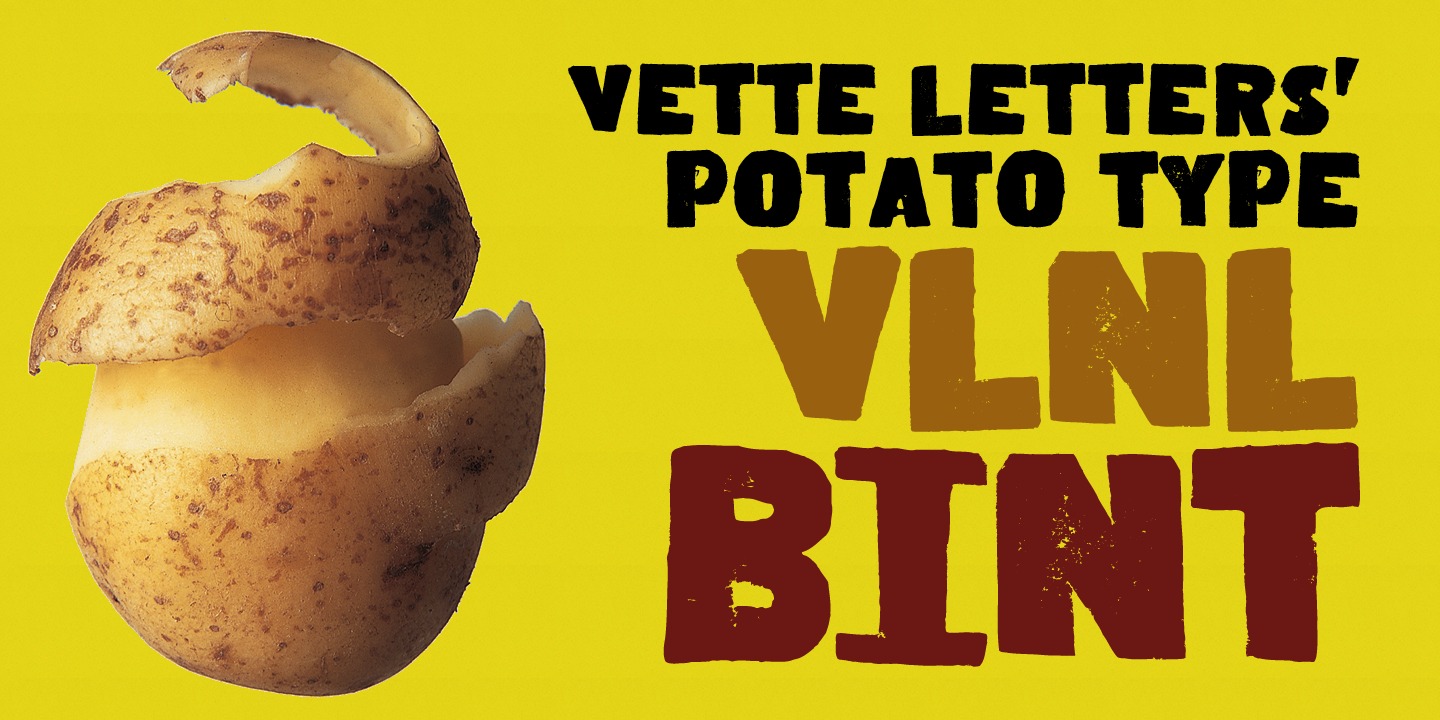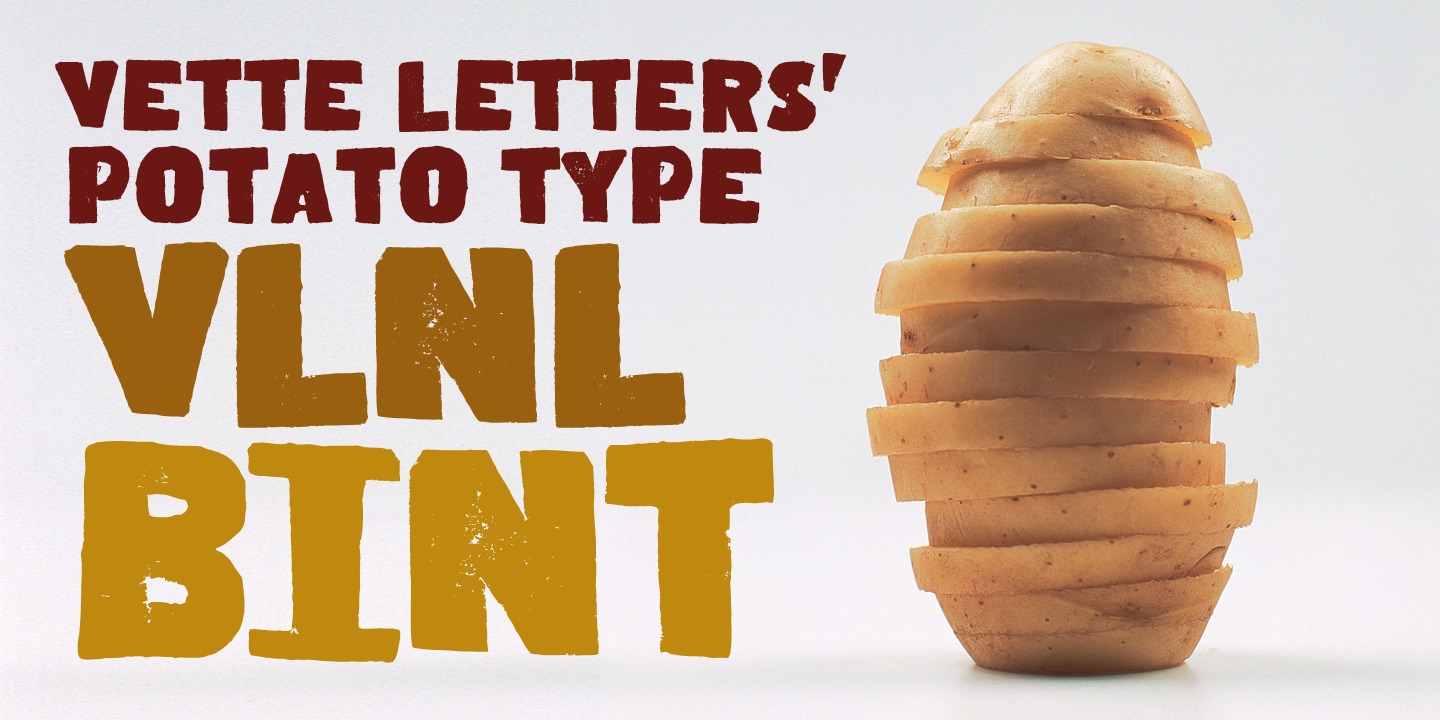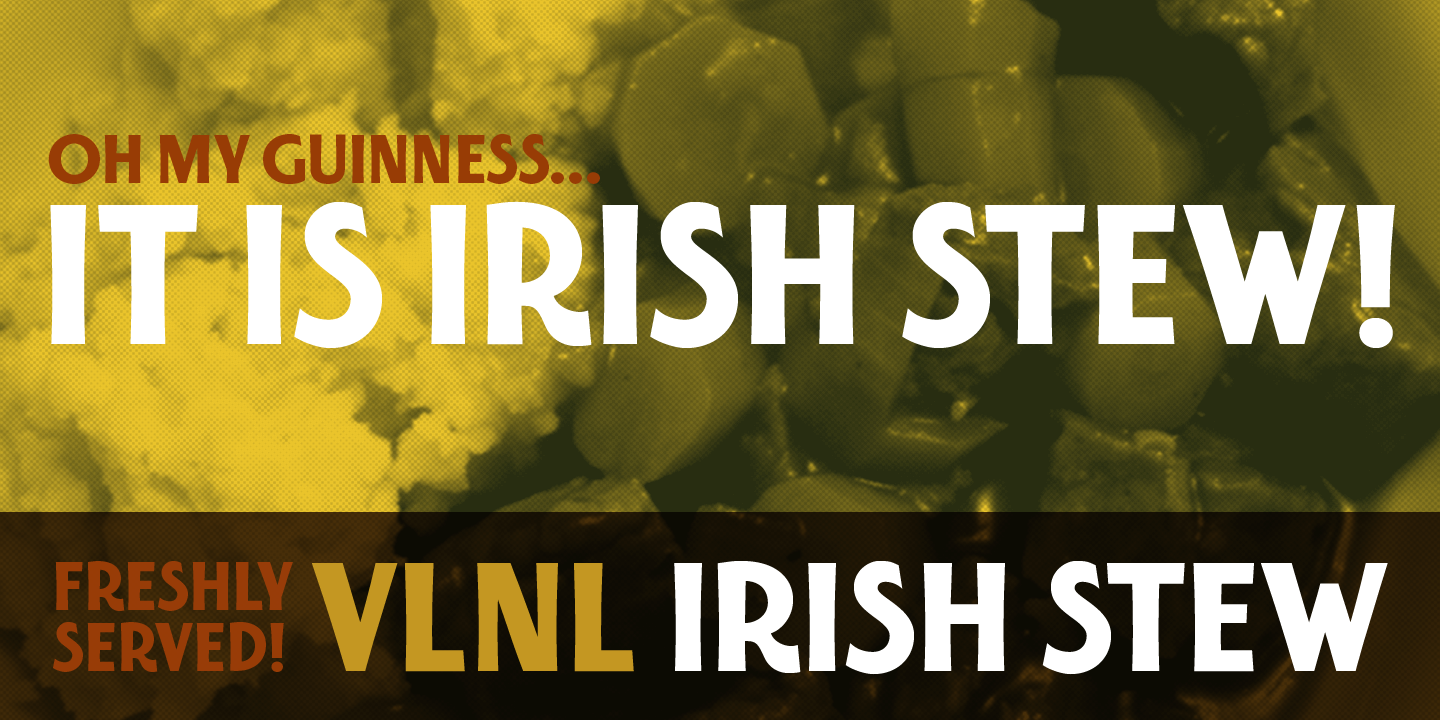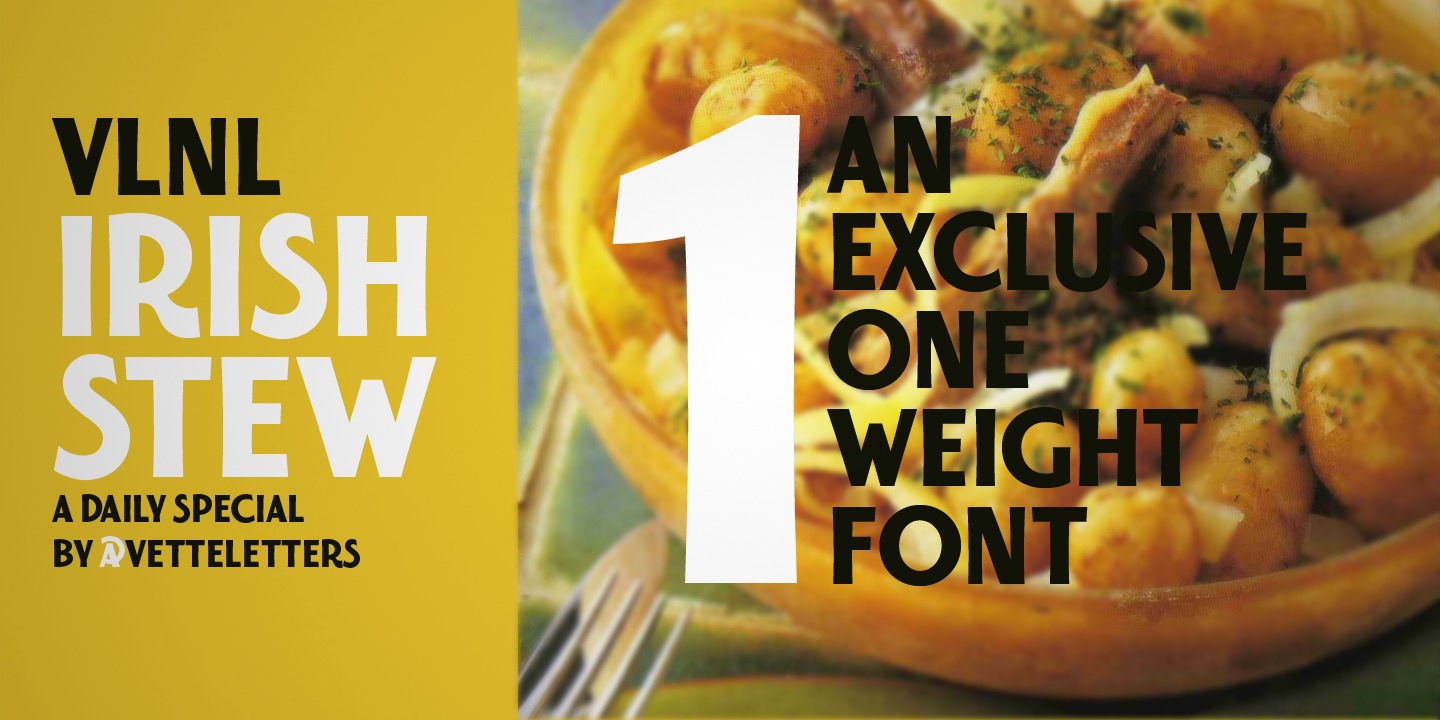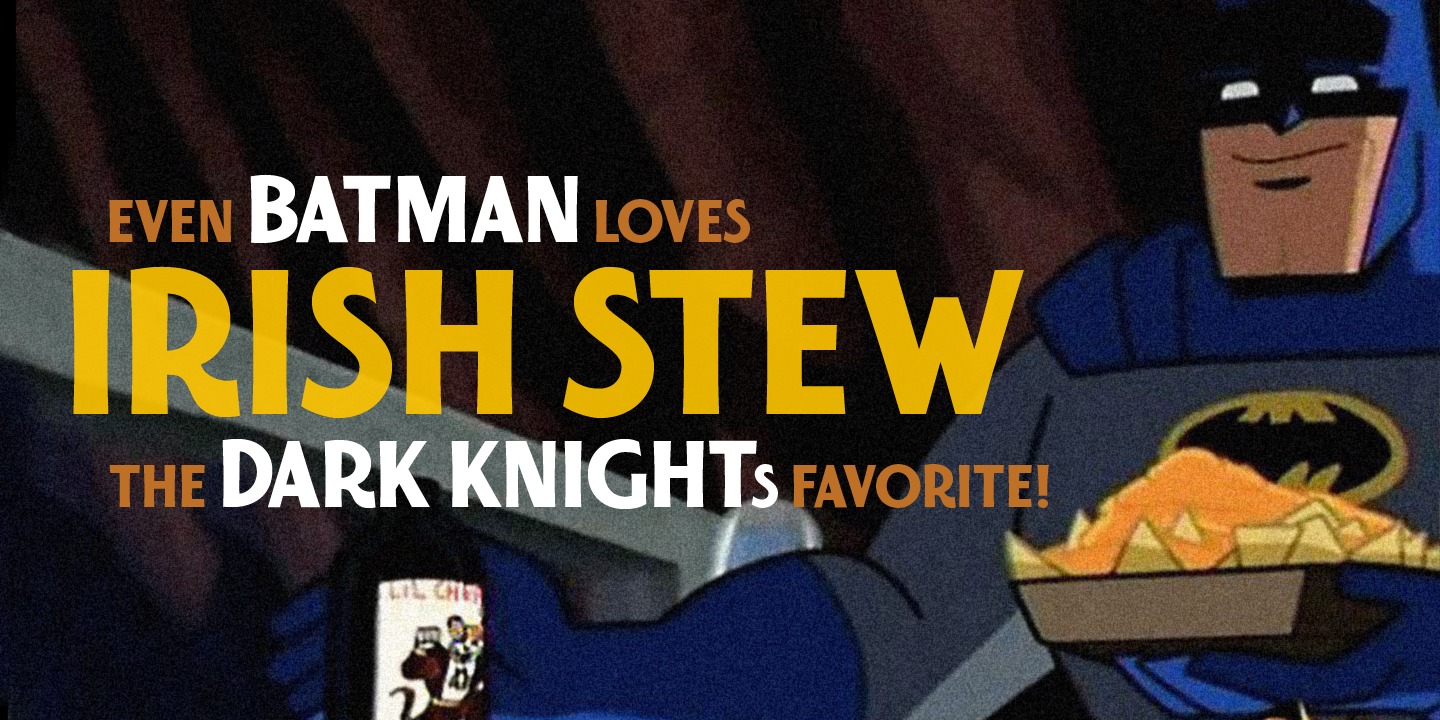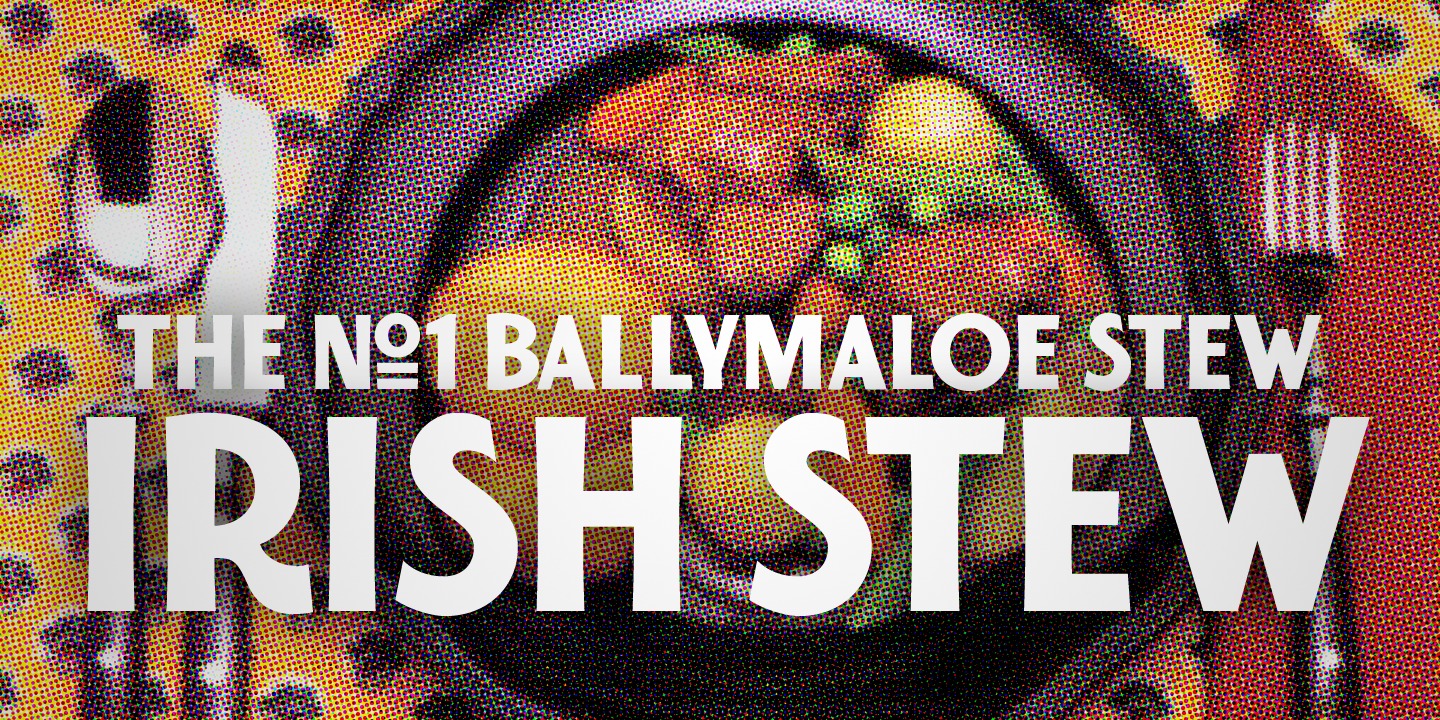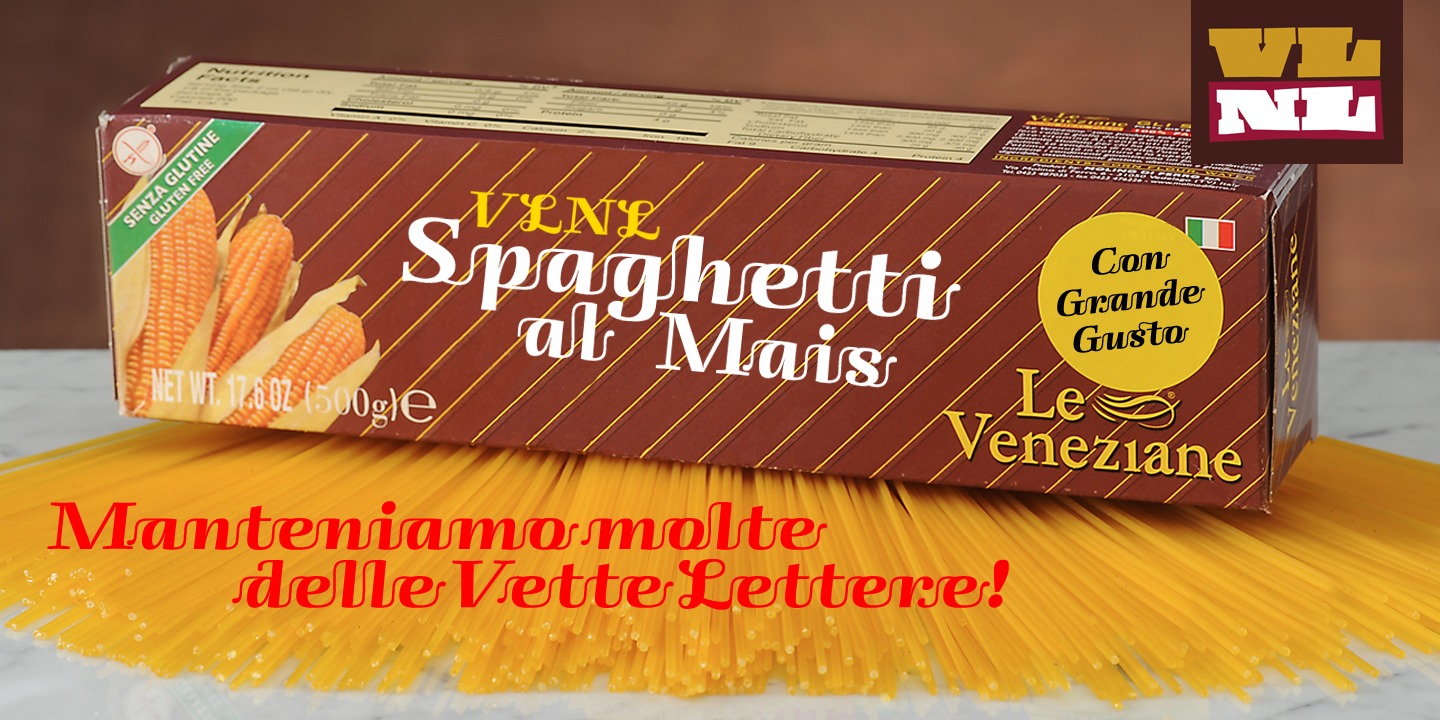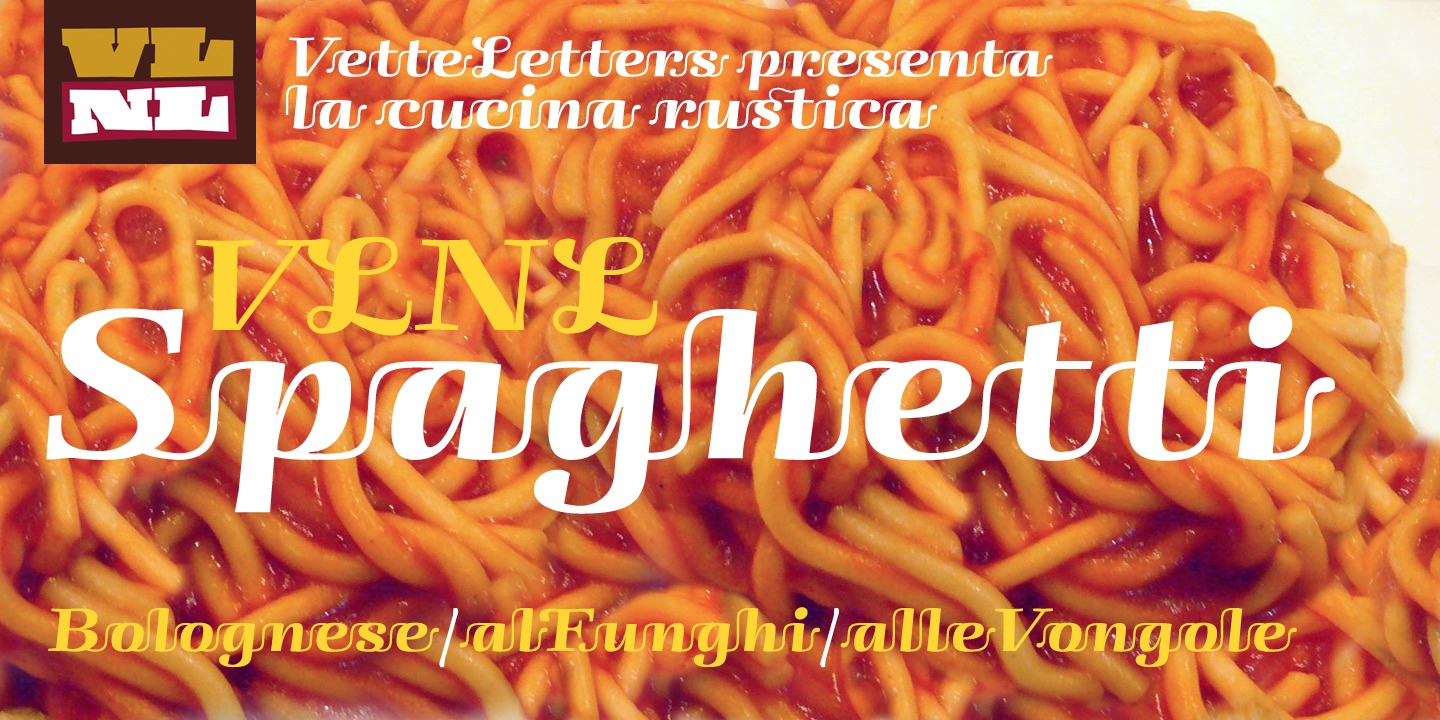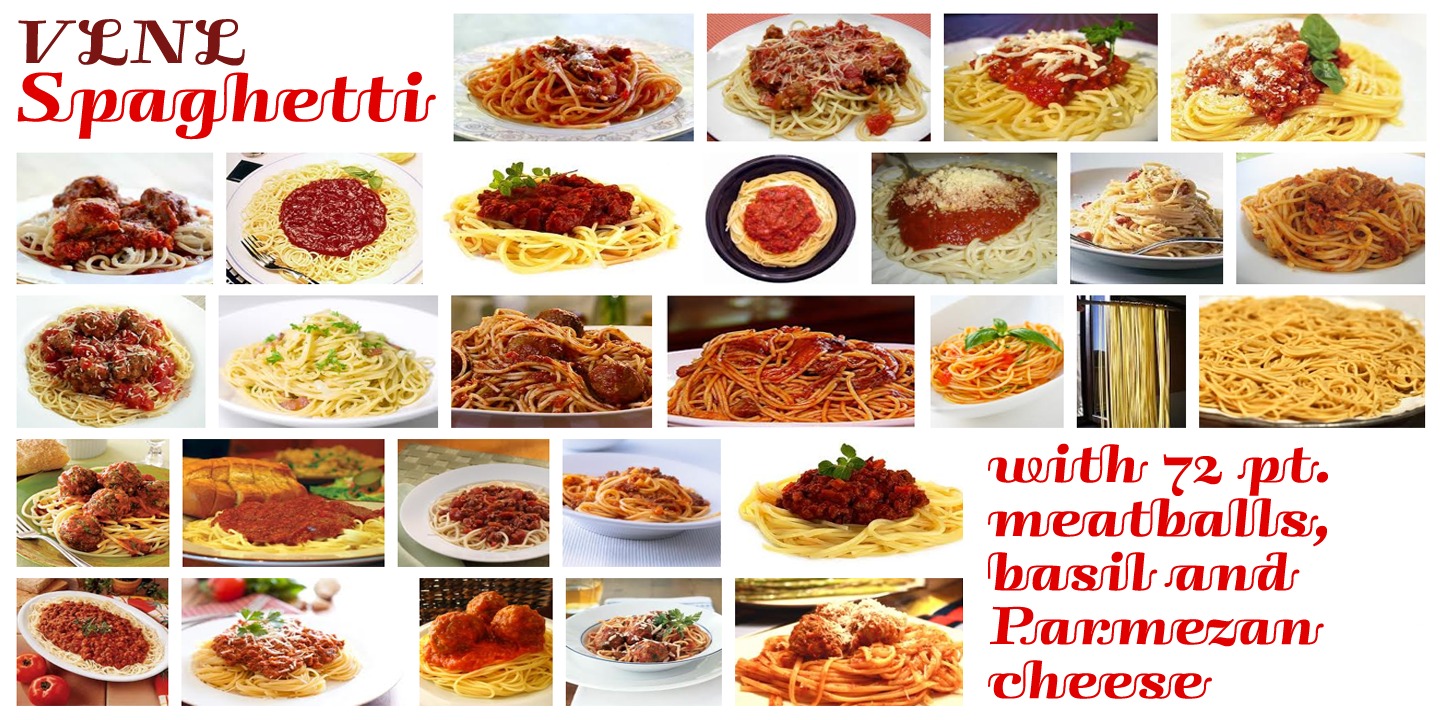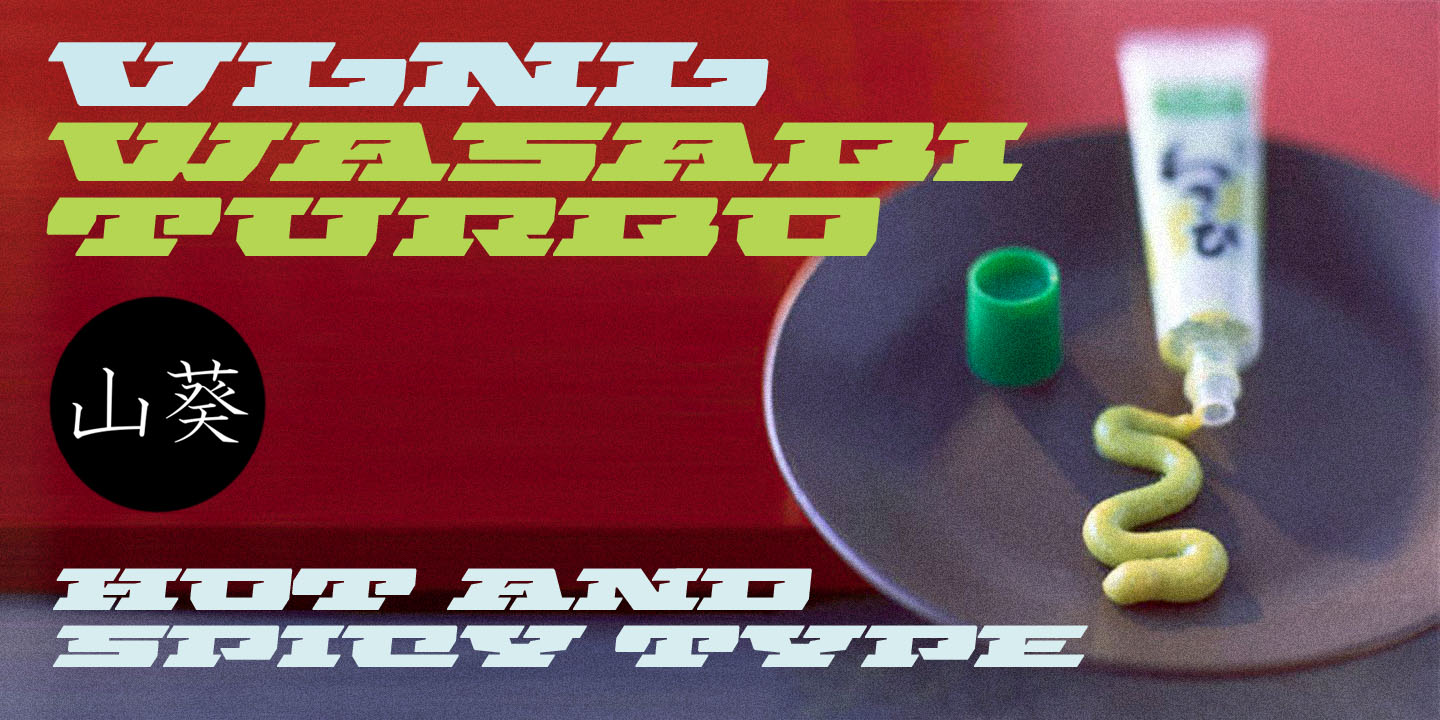
Donald Roos of NetherlandsBorn: Haarlem, 1978
DonaldĀ® always liked eating, and became a real foodie when working as an assistant cook in various restaurants during his studies at the Royal Academy (KABK) in The Hague. At that renowned school, he also acquired a taste for type and lettering... especially fat letters, because fat is yummy! And yummy is fun! Donald is also a web designer and communications adviser, as well as a saxophone player in the Dutch type designers' band Wolfraam, founded in 2005 for the presentation of the book Dutch Type and still going strong. Fonts by Donald RoosVLNL Bint, VLNL Dream Meal, VLNL Gaufre, VLNL Knoffel, VLNL Spaghetti Browse all fonts by Donald Roos ActivitiesPlease note: This is not an official page of Donald Roos and e-mailing us is not a good way to contact him. Corrections welcomed. |